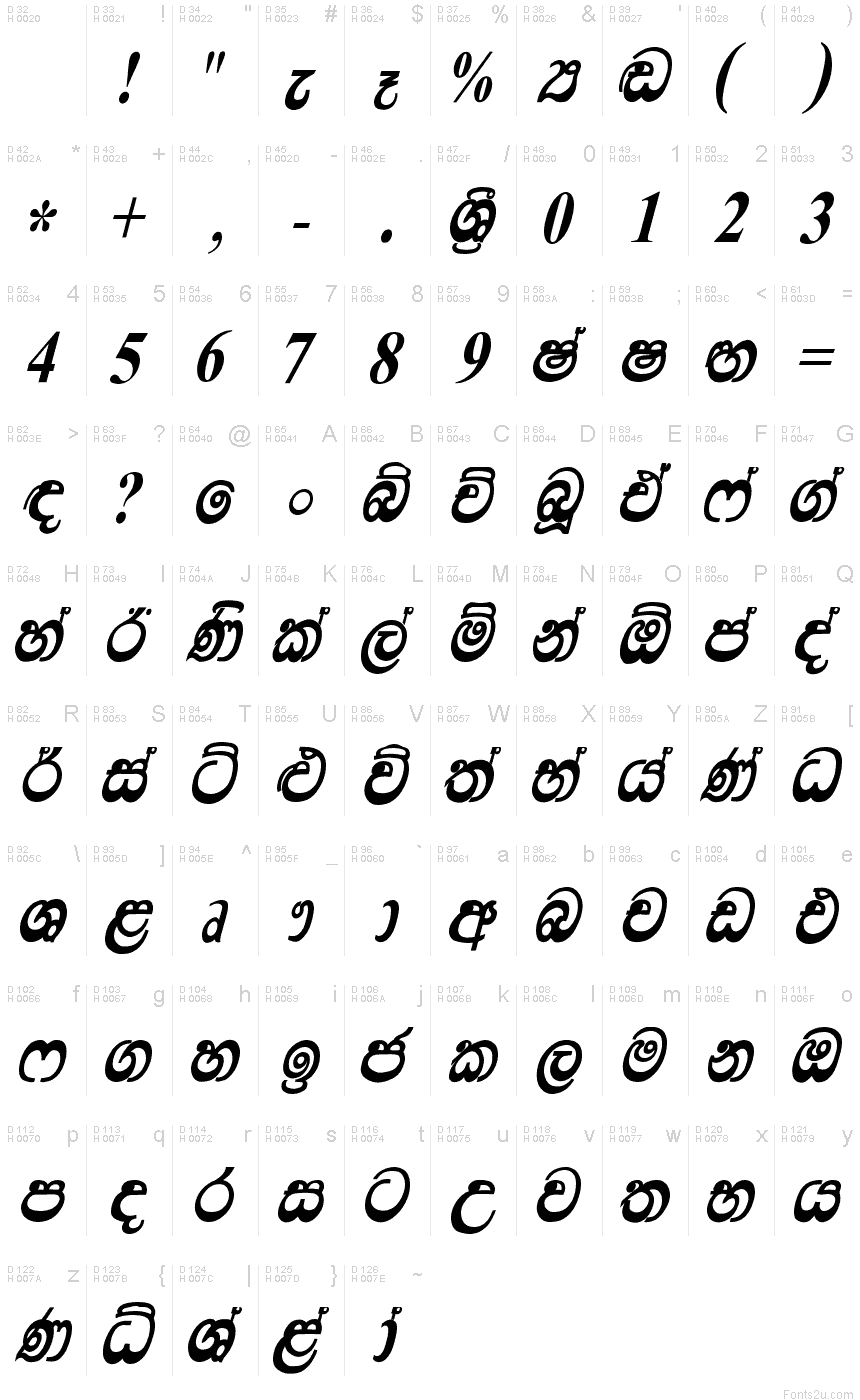
Lankatilaka is a free Sinhala script display font with broad, rounded forms and sharp shifts between thick bodies and fine curls. Compact loops and raised marks give the lettering an ornamental profile.
Its curves echo traditional decorative patterns, linking naturally with cultural illustration in festival posters and event programs. Dense silhouettes also suit book covers and museum graphics about Sri Lankan subjects. It is most convincing when the lettering becomes the main decorative motif.